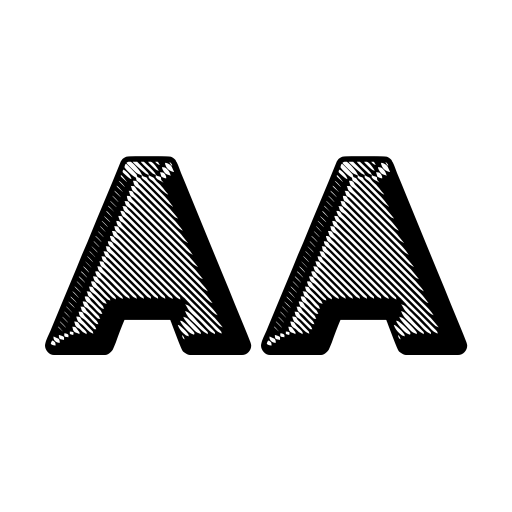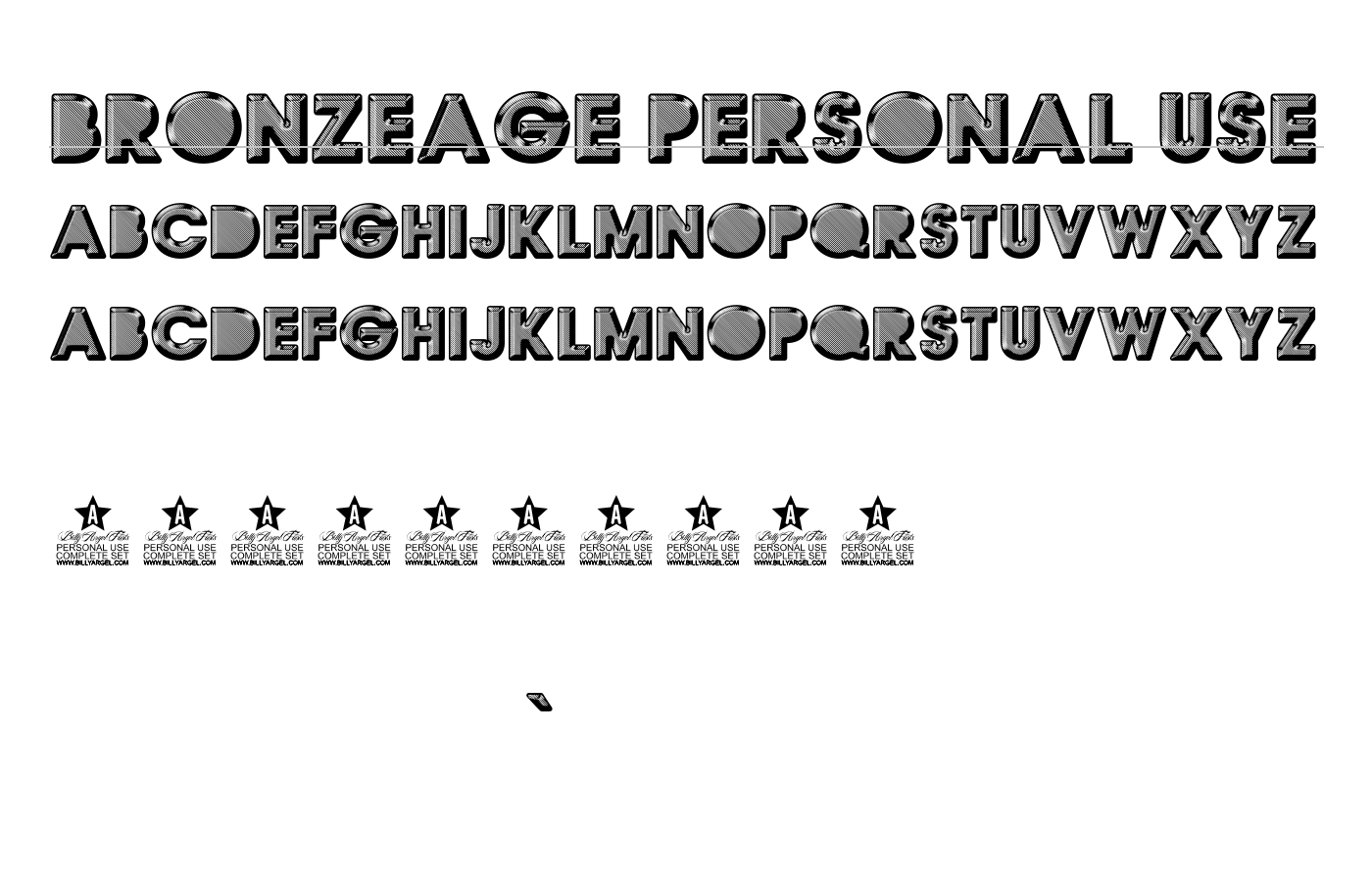
BronzeAge Personal Use is a bold and decorative sans serif font with strong geometric shapes and a unique halftone shading effect that adds depth and vintage character. Its all-uppercase style and impactful weight make it perfect for eye-catching headlines, logos, and retro-inspired designs that need a playful yet robust presence. This font shines in projects like posters, branding, and packaging where a distinctive, nostalgic feel is desired.
BRONZEAGE PERSONAL USE Font
About BRONZEAGE PERSONAL USE Font